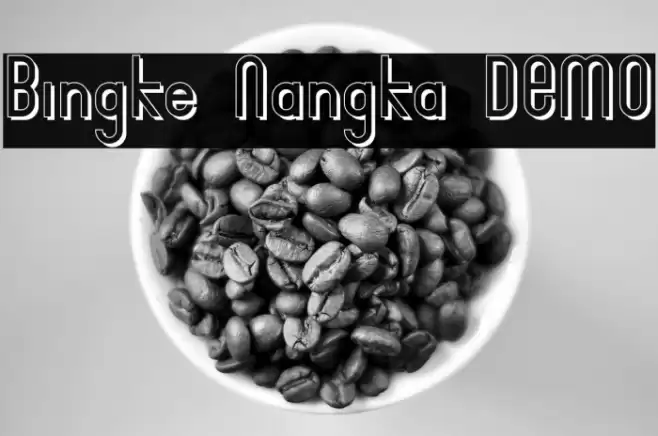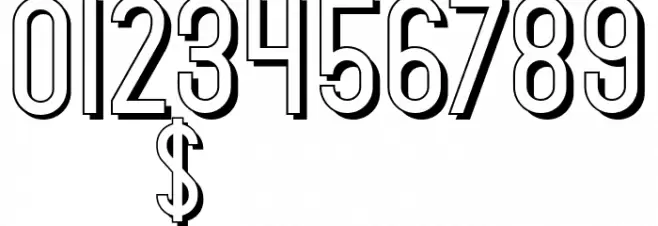
Bingke Nangka DEMO Font
Bingke Nangka DEMO Description
This font features a bold, geometric design with a distinct outline that gives each character a three-dimensional appearance. The uppercase and lowercase letters maintain a consistent height, creating a uniform look. The characters are constructed with clean lines and sharp angles, contributing to a modern aesthetic. The numbers and special characters follow the same design principles, ensuring cohesion throughout the font set. The spacing between characters is balanced, allowing for readability while maintaining the font's unique style. This font's bold outline and structured form make it suitable for eye-catching designs.
A bold, geometric font with a three-dimensional outline and modern aesthetic from Regular fonts.
- Proposed Projects: Ideal for branding, posters, headlines, and any design requiring a modern, standout font.